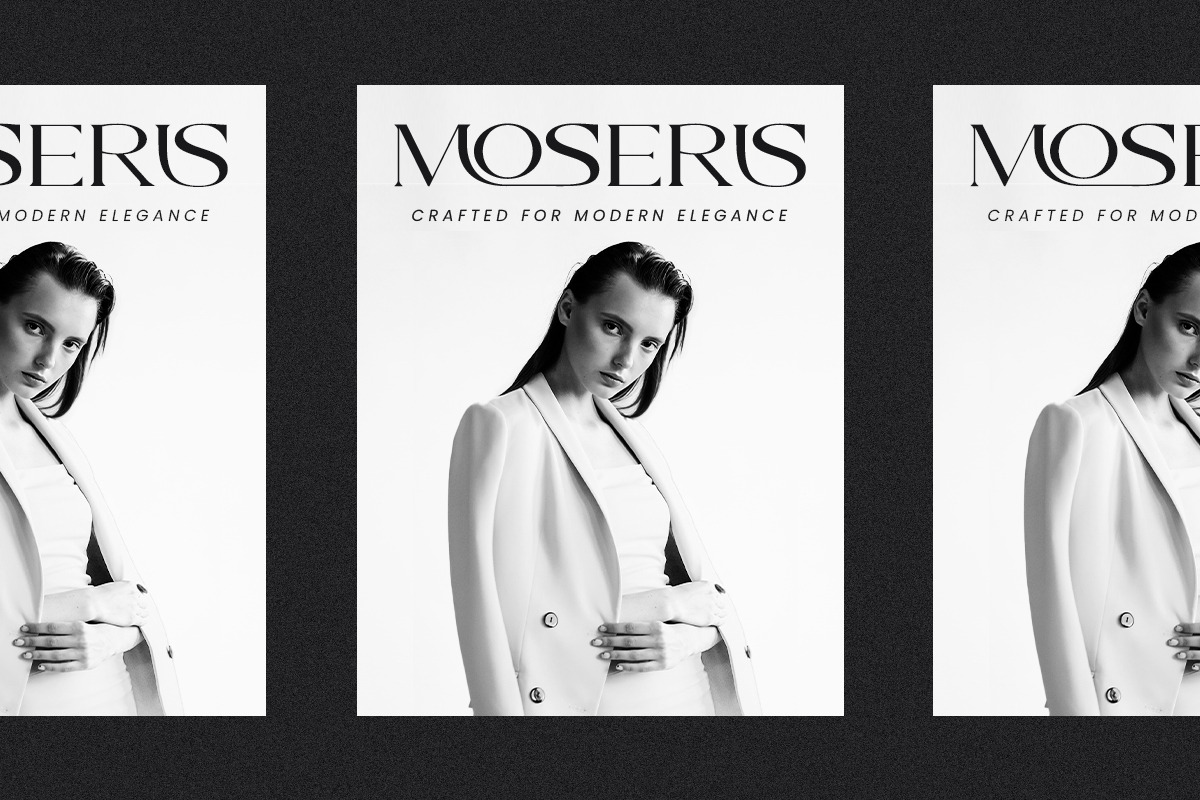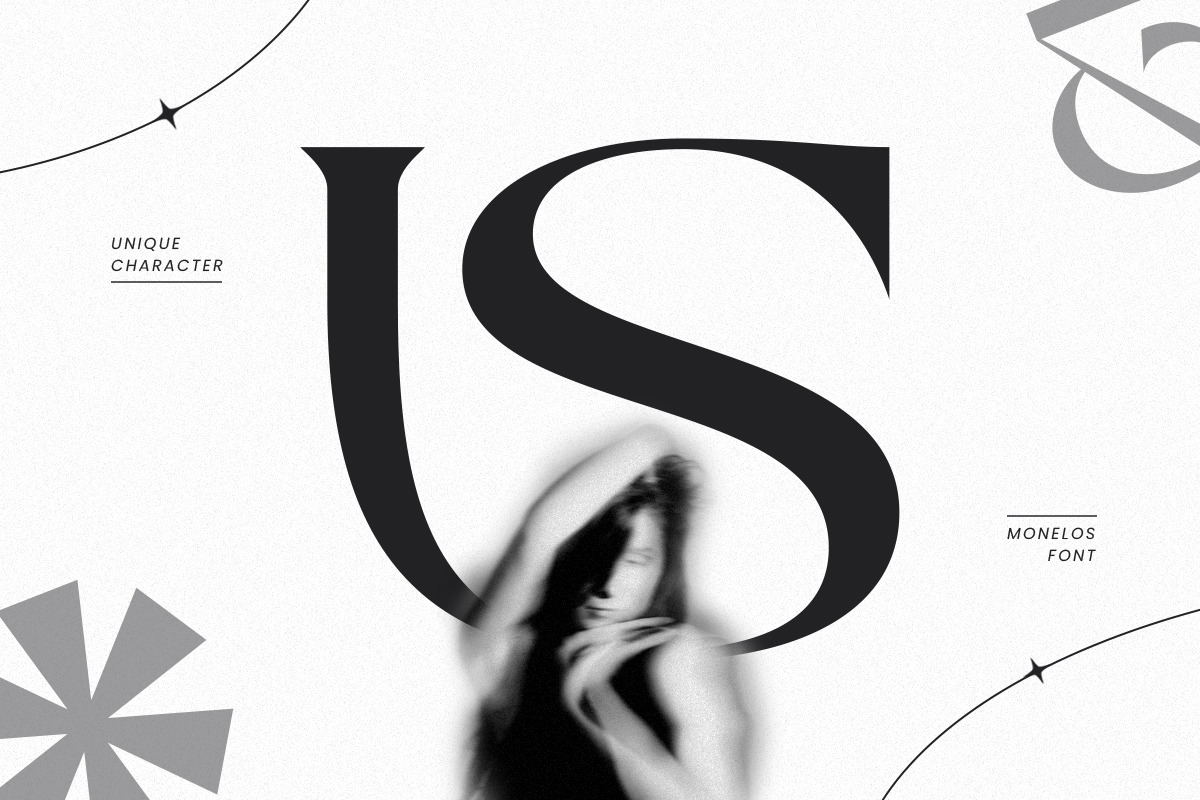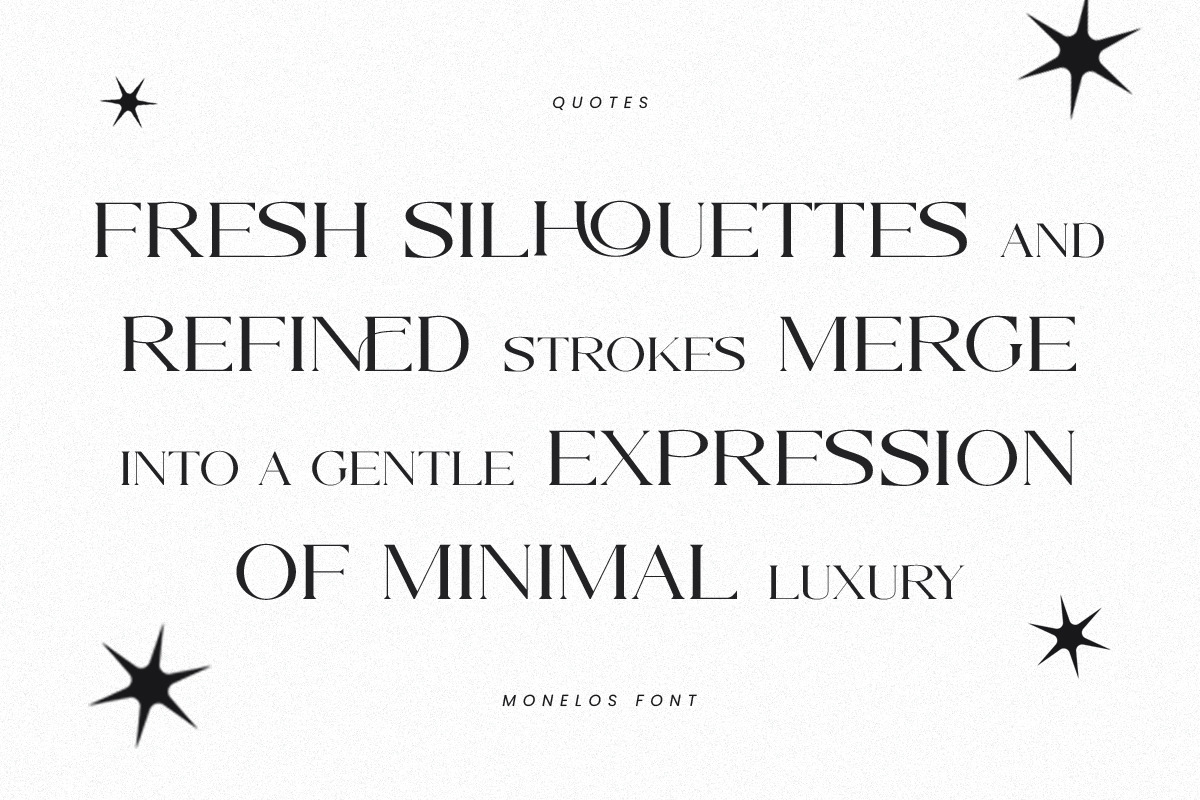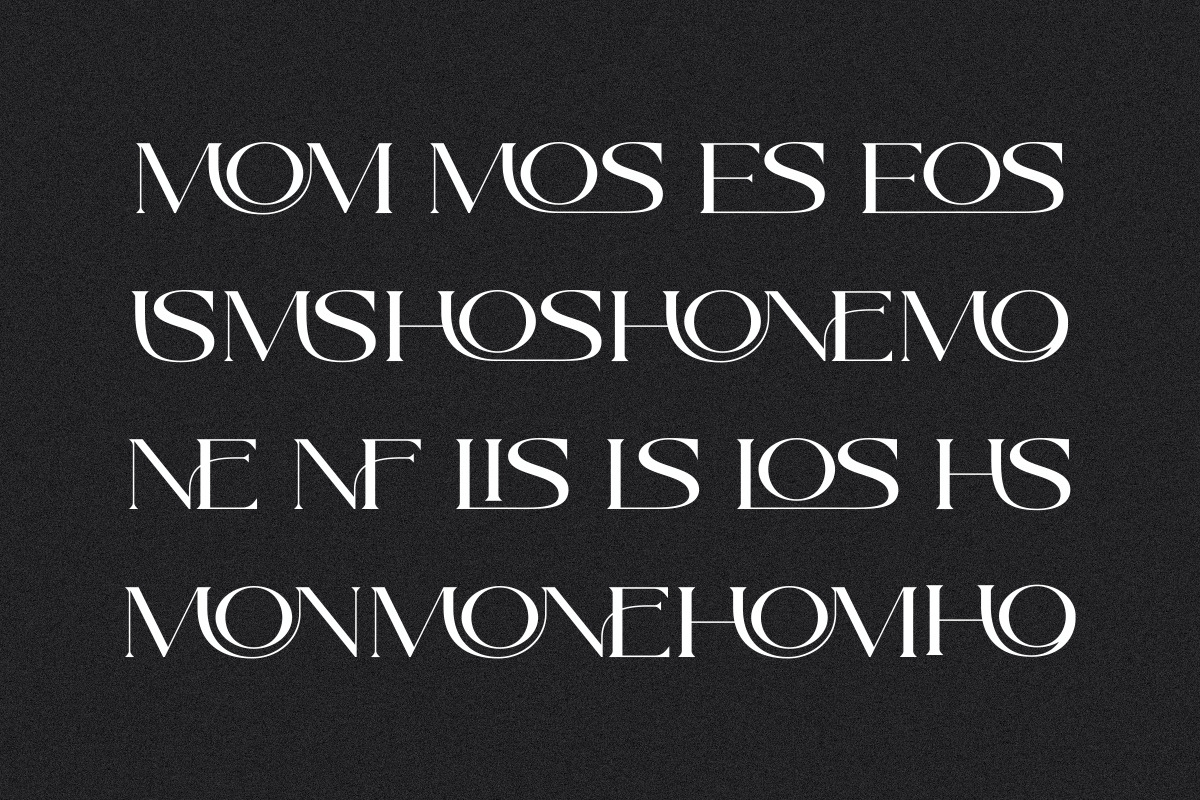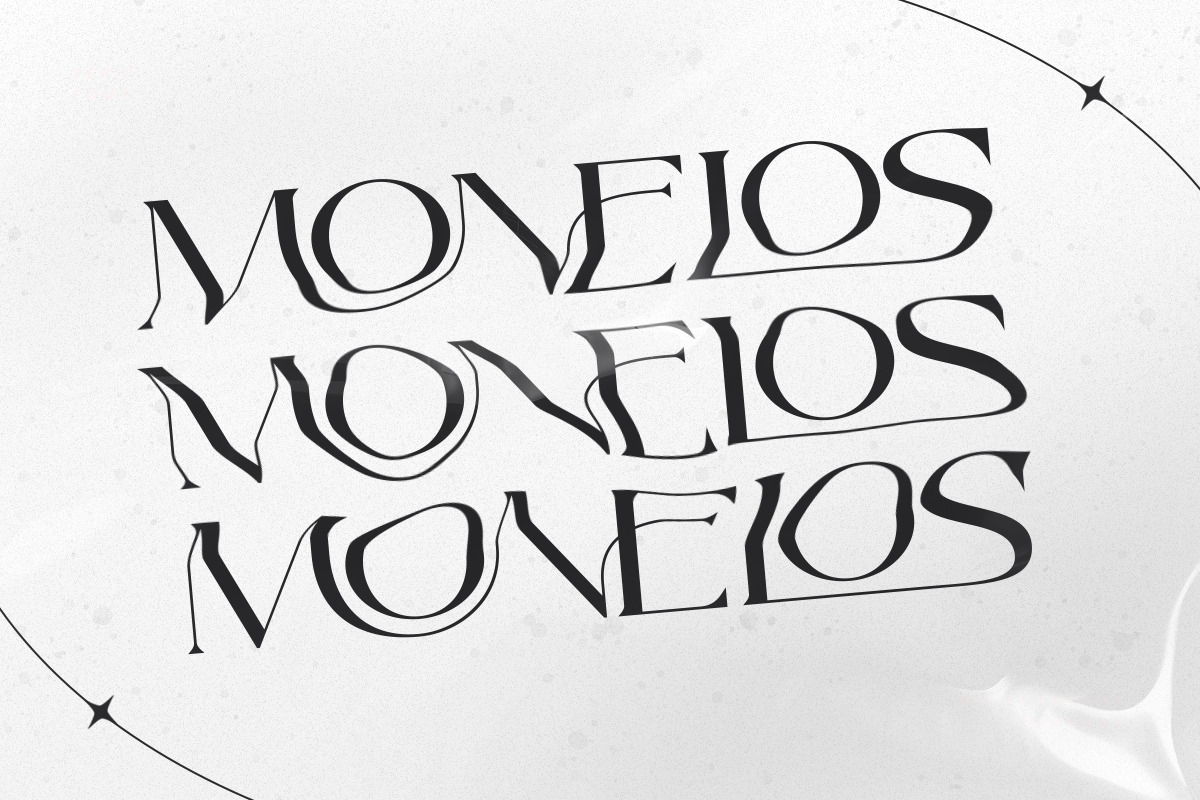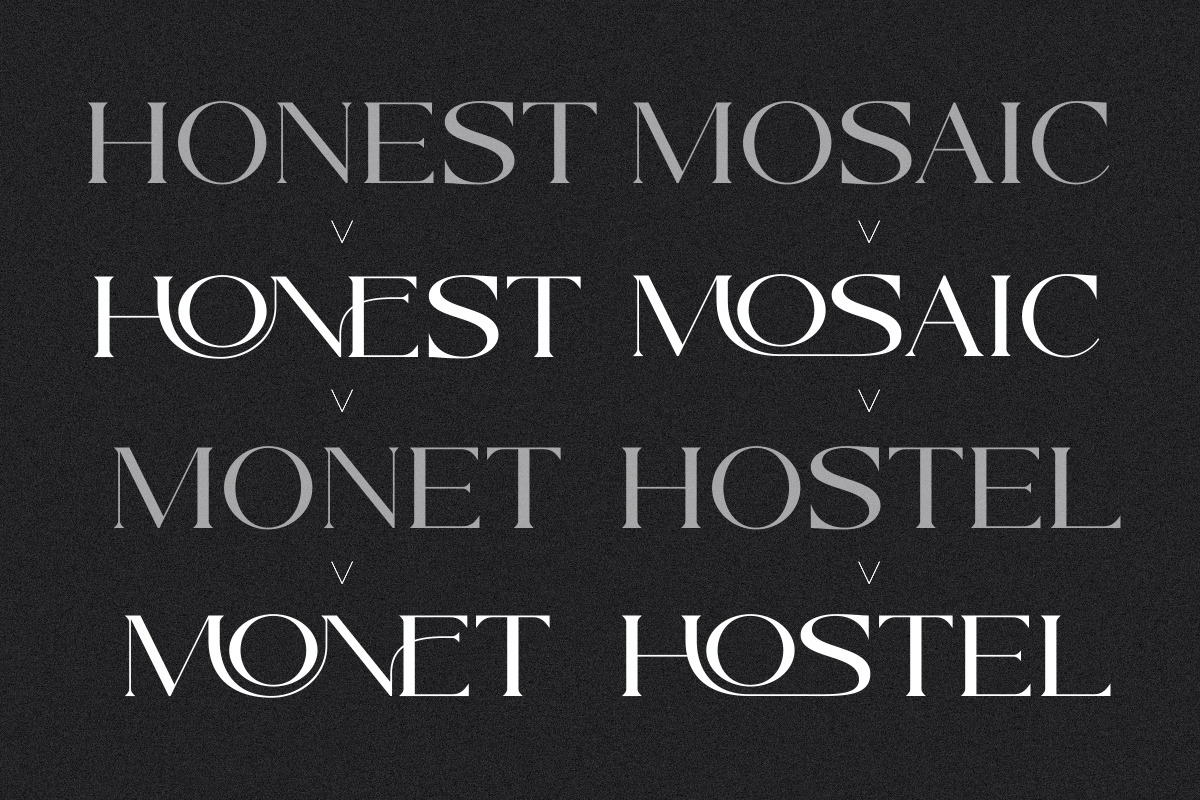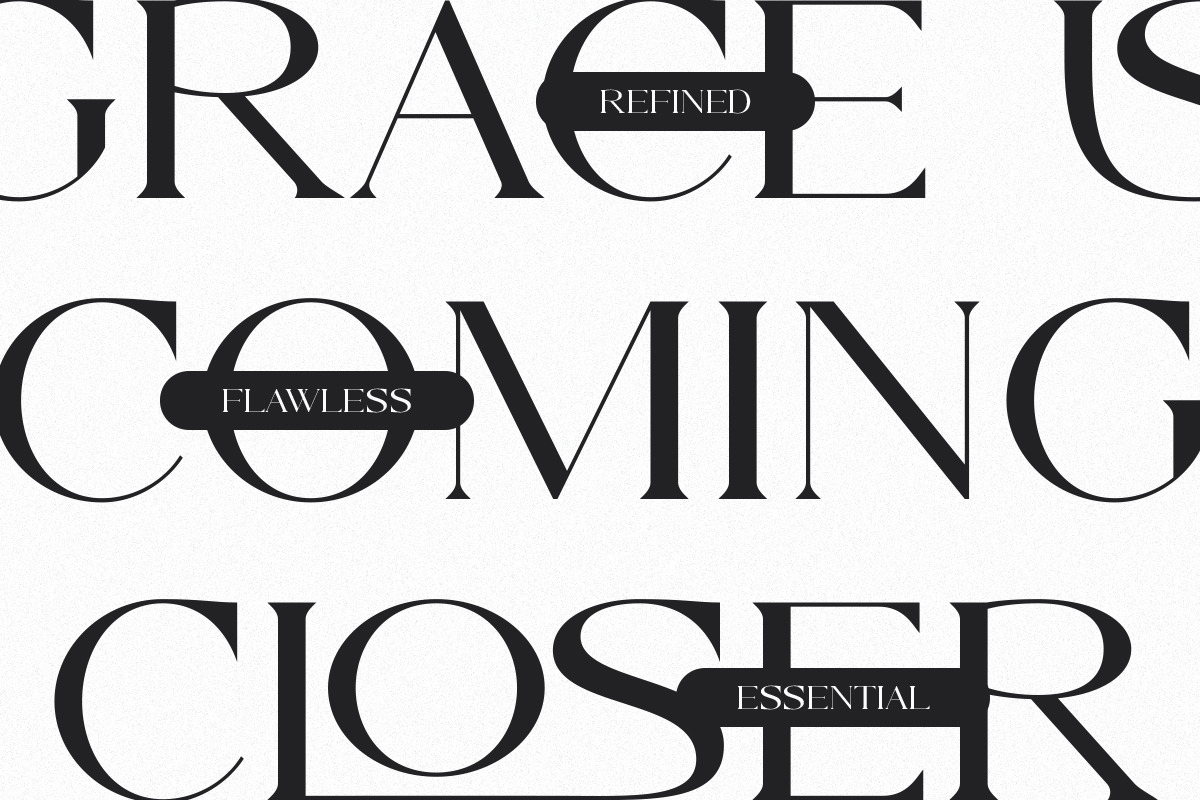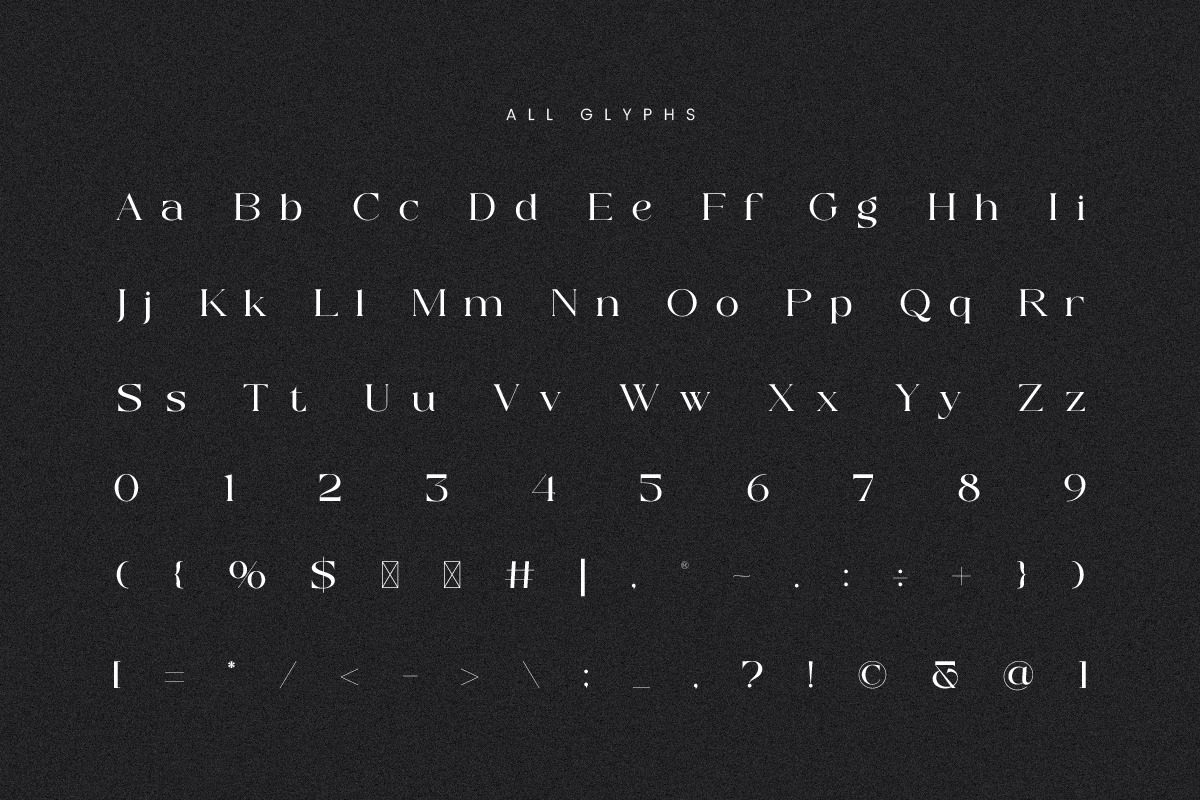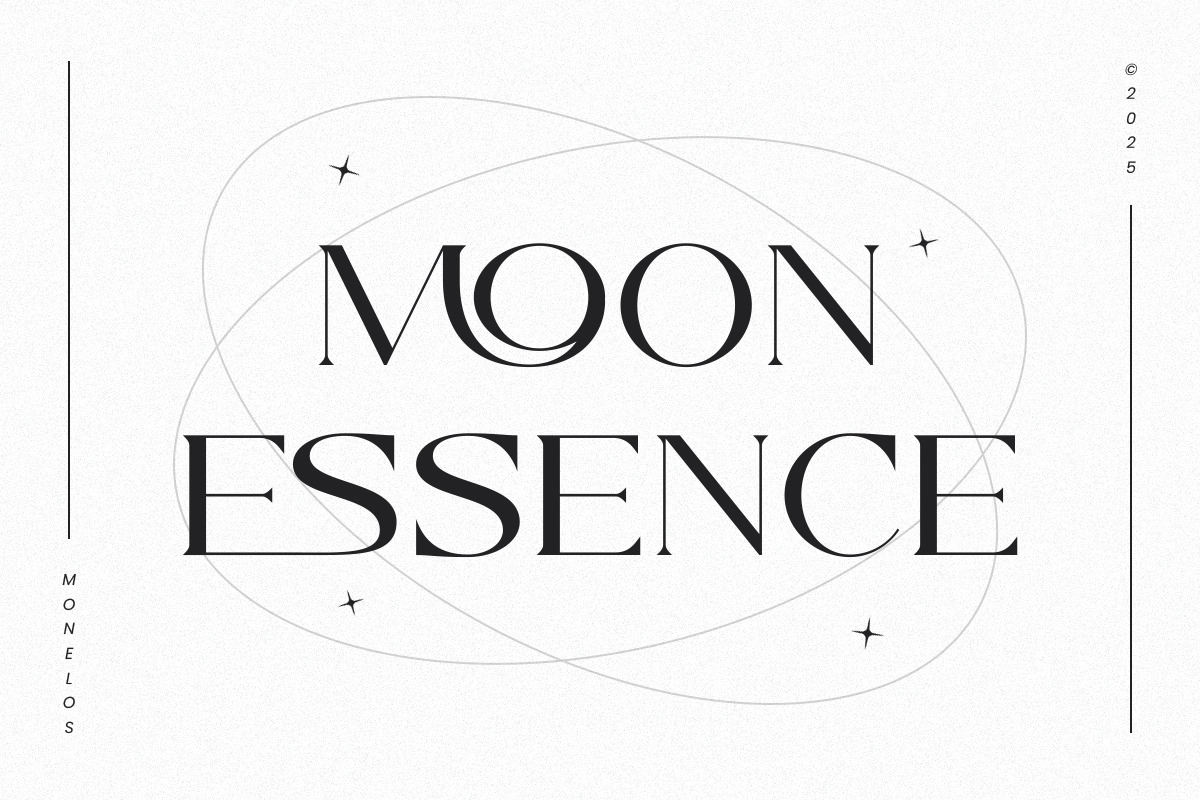
Monelos || modern serif
Monelos is a modern serif font featuring elegant curves and refined line details, crafted to bring a luxurious and contemporary look to any design project. Its distinctive letterforms blend minimalism with artistic sophistication, making it a perfect choice for premium branding, editorial layouts, fashion logos, packaging, and high-end visual design. With its sleek strokes, graceful serifs, and unique alternates, Monelos adds a timeless and stylish character to your typography. Ideal for designers who want to create a bold yet elegant identity. Perfect for: Branding, logos, fashion portfolios, editorial design, luxury packaging, posters, invitations, and any project that needs a modern, high-class aesthetic.
- Complete uppercase & lowercase letters
- Numerals & punctuation
- Modern alternates & ligatures
- Elegant thin strokes suitable for logos & headings